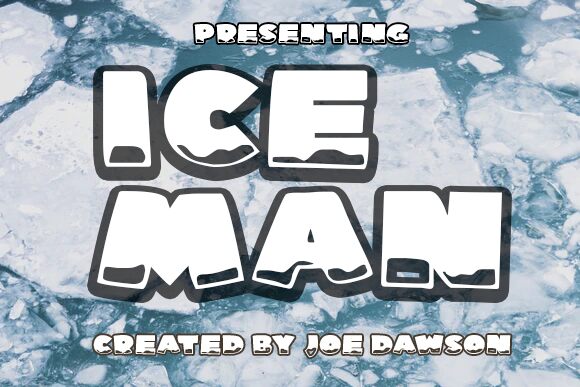
Ice Man is a fun, cartoon-styled display font designed by Joseph Dawson, perfect for warm summer days. Add this font to your creative ideas and notice how it will make them stand out!
Ice Man